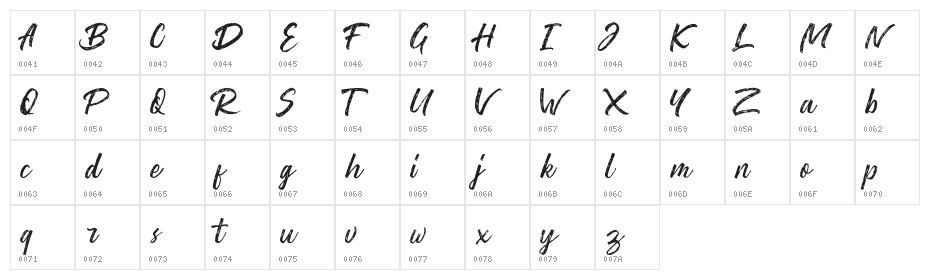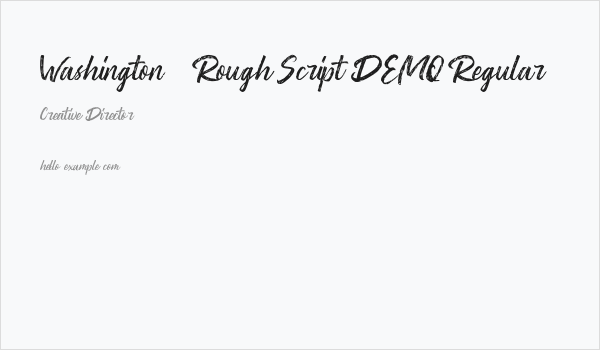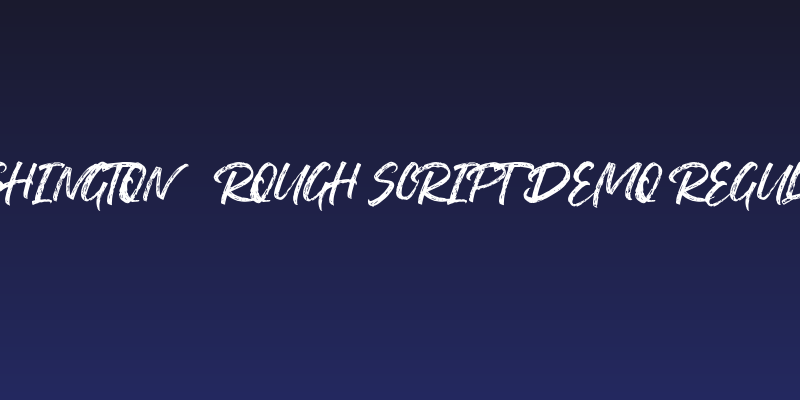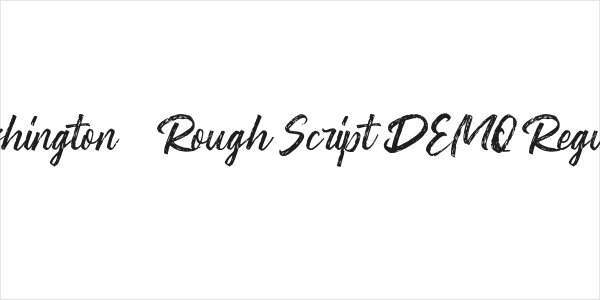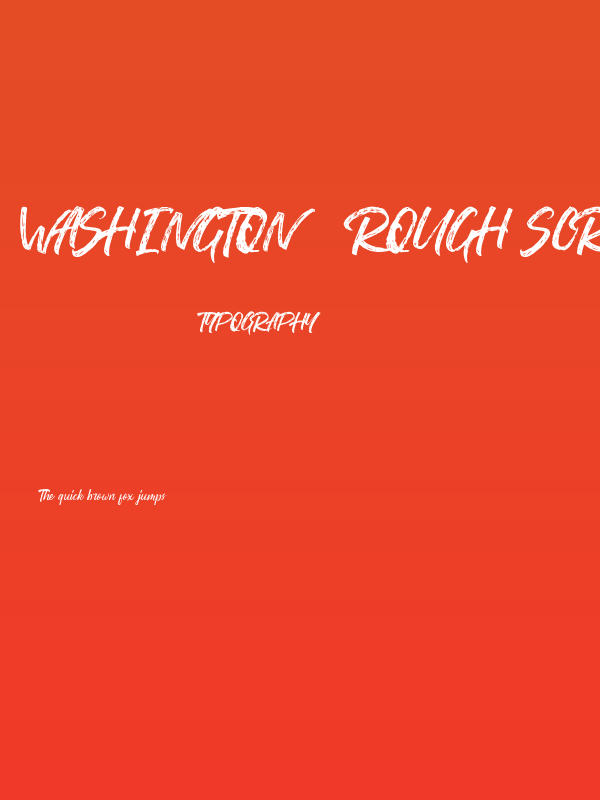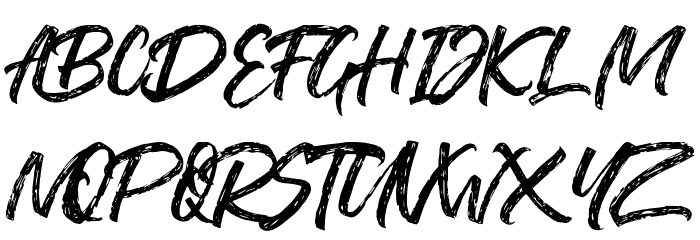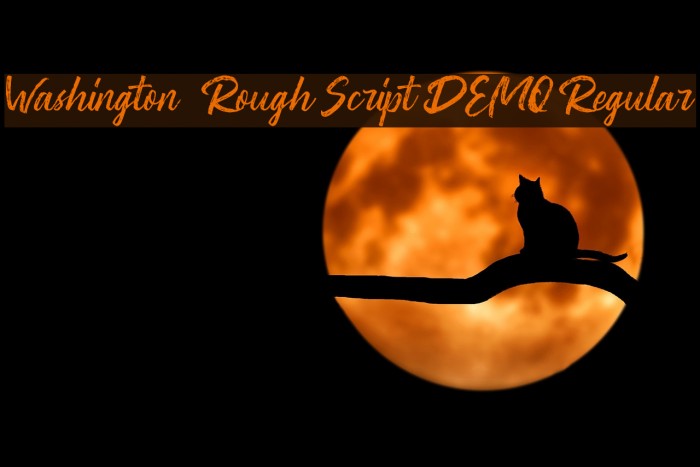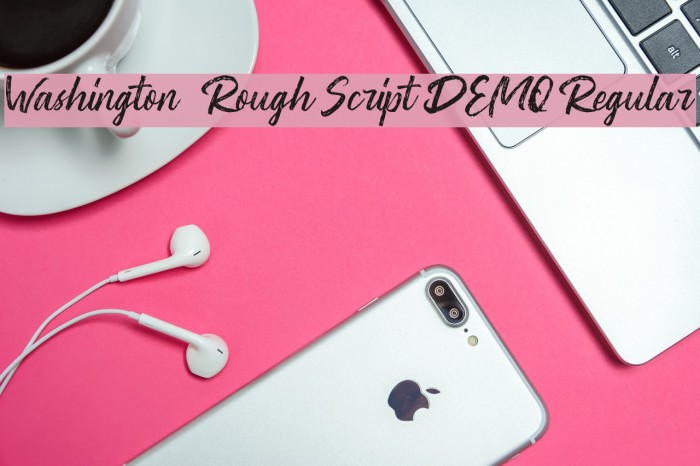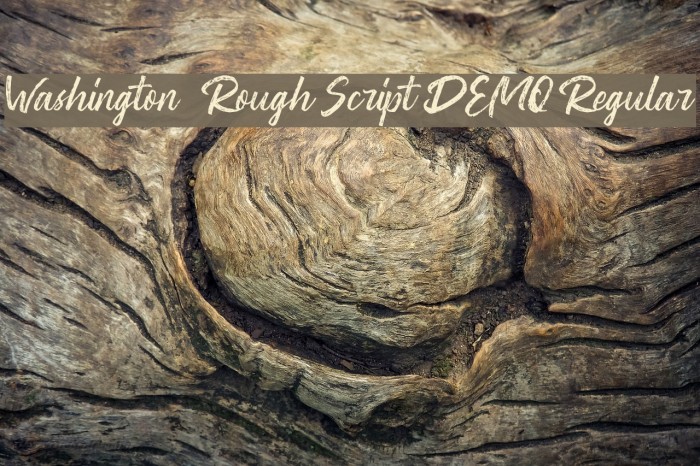
Washington ~ Rough Script DEMO Regular Font
Washington ~ Rough Script DEMO Regular Description
This font exudes a dynamic and energetic vibe with its rough, hand-drawn script style. The letters are bold and expressive, featuring a textured appearance that mimics the look of brush strokes. The uppercase and lowercase characters maintain a consistent flow, adding to the font's casual and artistic appeal. The numbers and special characters are equally expressive, ensuring a cohesive look across all text elements. This font is perfect for projects that require a personal touch or a sense of movement and creativity.
| Proposed Projects | Ideal for branding, posters, invitations, and any design needing a personal, artistic touch. |